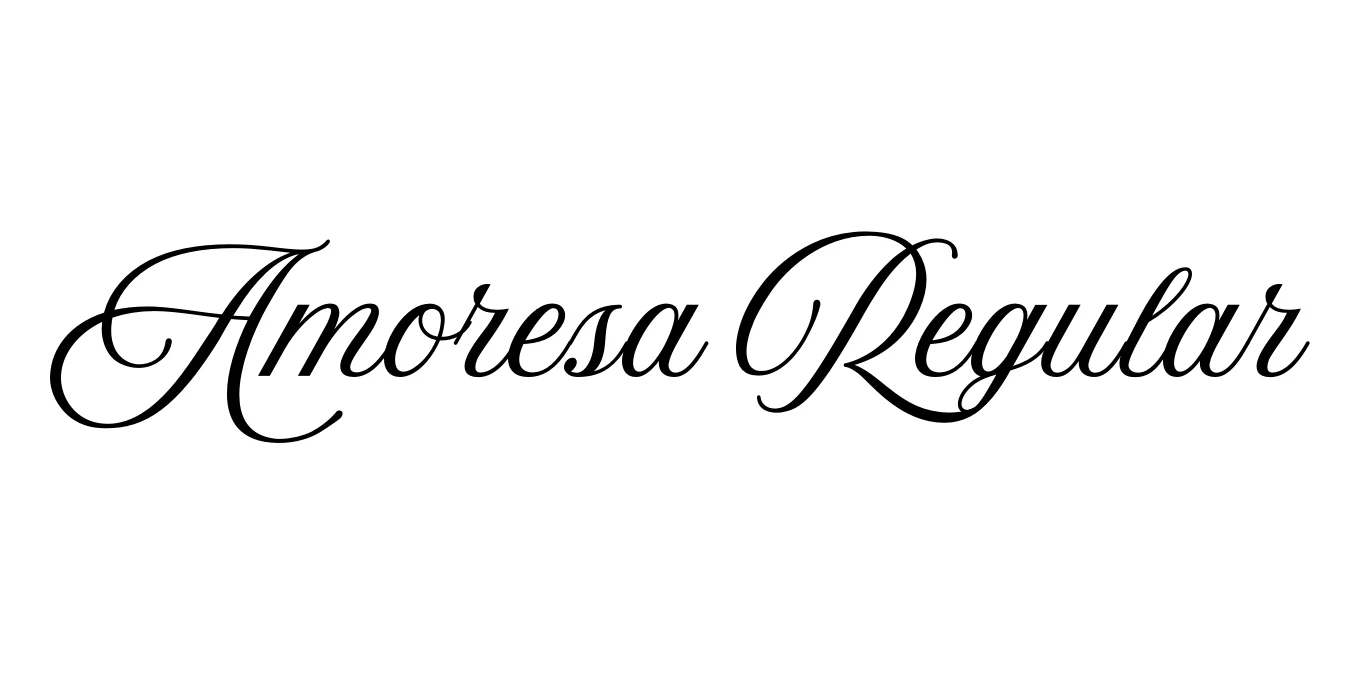
Amoresa Regular
Designed by Ariyadi
Amoresa Regular is an exquisite script typeface that embodies elegance and modern calligraphy. Designed by Ariyadi, this font features flowing strokes and sophisticated curves that provide a natural, hand-drawn appearance. Its balanced proportions and graceful swashes make it a standout choice for designers looking to infuse their projects with a sense of romance and high-end craftsmanship.
The versatility of Amoresa Regular allows it to function beautifully across both digital and physical platforms. It is particularly well-suited for the wedding and luxury industries, where its delicate aesthetic can shine on invitations, stationery, and branding materials. With its clean lines and legible script style, it offers a perfect bridge between traditional penmanship and contemporary graphic design trends.
Amoresa Regular Best Uses
Ideal for creating a romantic and personalized feel for ceremony cards and envelopes.
Perfect for signature-style logos in the beauty, fashion, and jewelry sectors.
Excellent for high-engagement quote graphics and decorative Instagram stories.
Adds a premium, artisanal touch to product labels and luxury gift boxes.